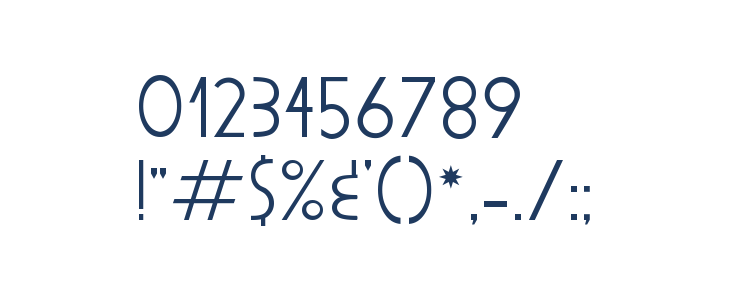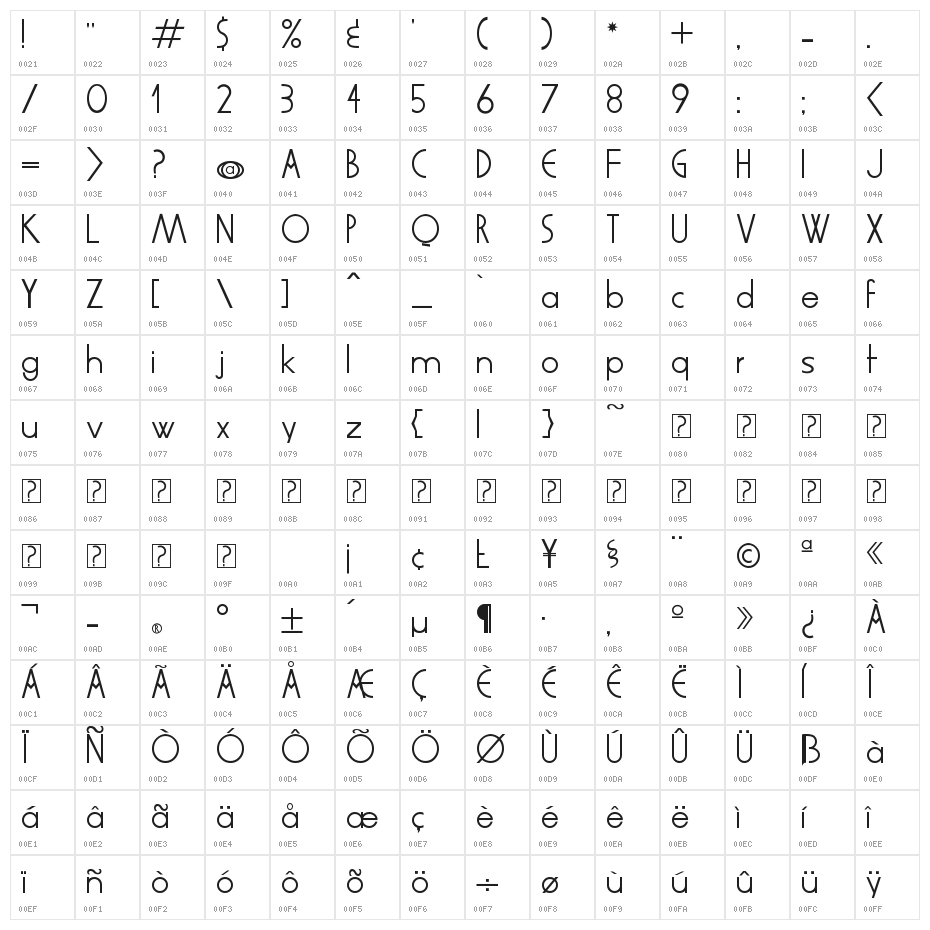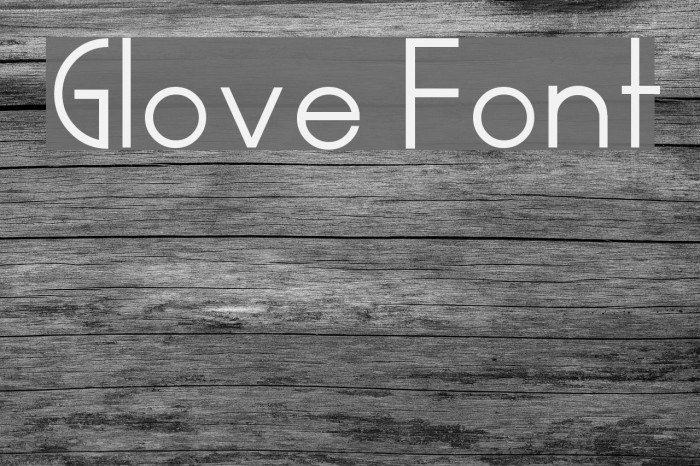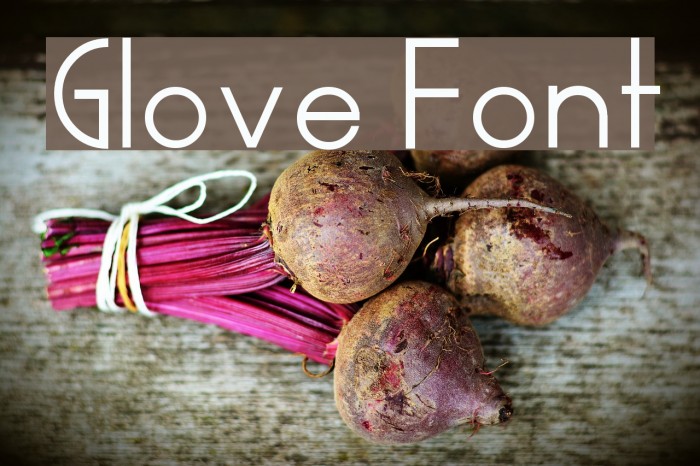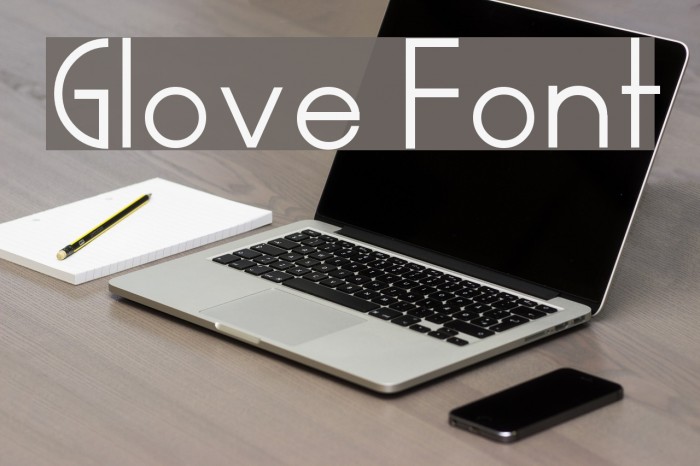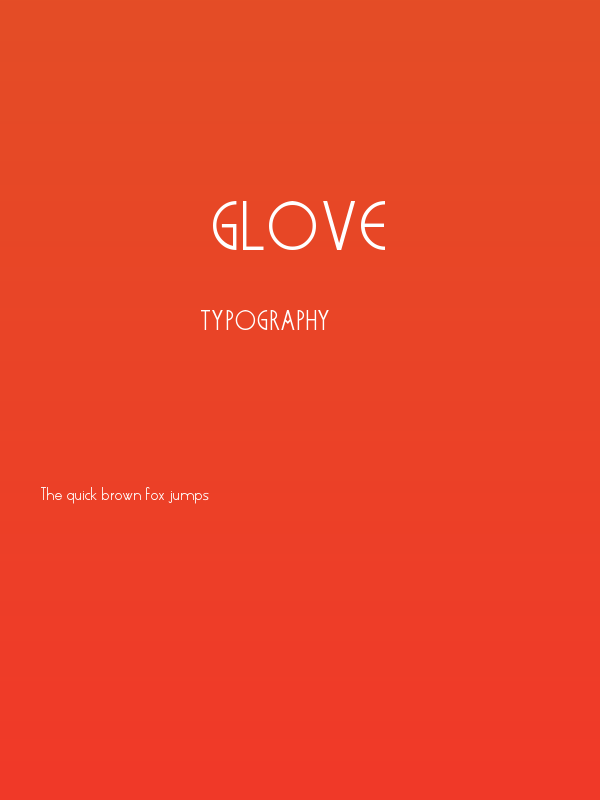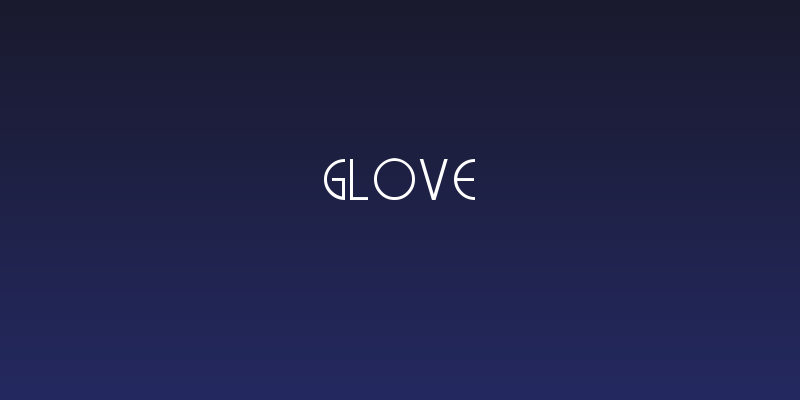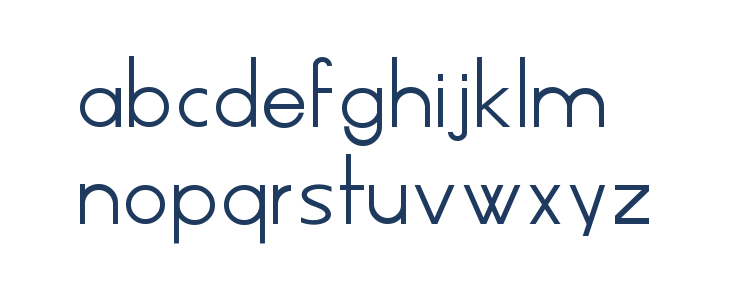
Glove Font
Glove Description
This font features a clean and geometric design, characterized by its uniform stroke width and modern aesthetic. The uppercase letters are tall and slightly condensed, giving a sleek and sophisticated appearance. The lowercase letters maintain a consistent roundness, contributing to the font's overall harmony and balance. The numerals are clear and legible, with a contemporary style that complements the alphabetic characters. Special characters are well-integrated, maintaining the font's cohesive look. This font's simplicity and elegance make it versatile for various design applications.
| Proposed Projects | Ideal for branding, advertising, editorial design, and digital interfaces. |